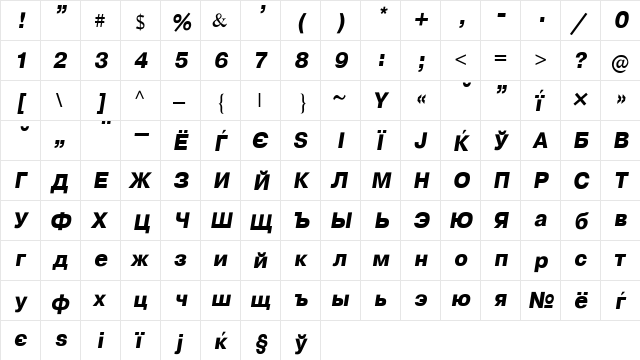
CyrillicHelv Bold Italic
Design Context for CyrillicHelv Typeface
CyrillicHelv takes a measured approach to typography — its balanced proportions and neutral character make it a reliable workhorse for both digital and print work. The slanted form adds forward momentum and visual energy. Its bold stroke weight gives it real presence on the page.
Pro Tip: Use CyrillicHelv for emphasis, pull quotes, and subheadings where its slanted energy can add rhythm to the layout.